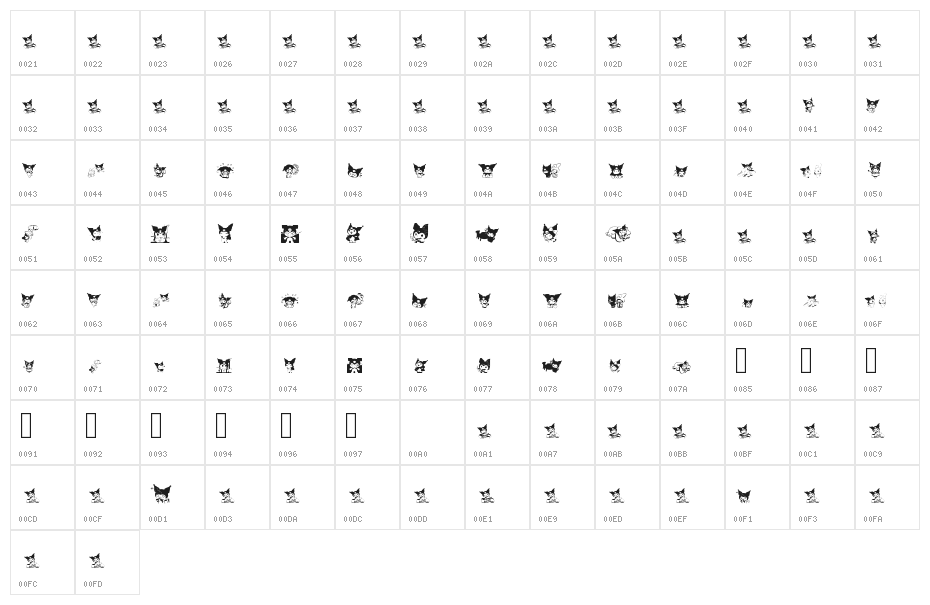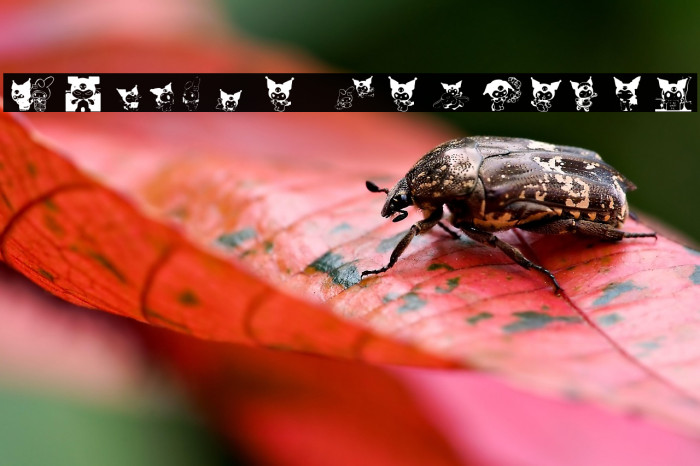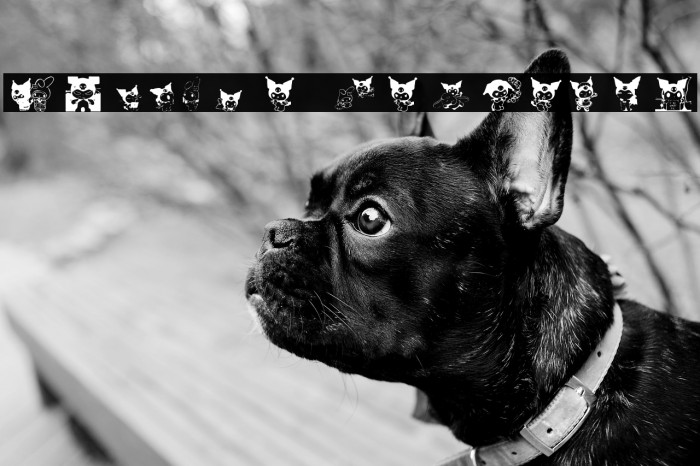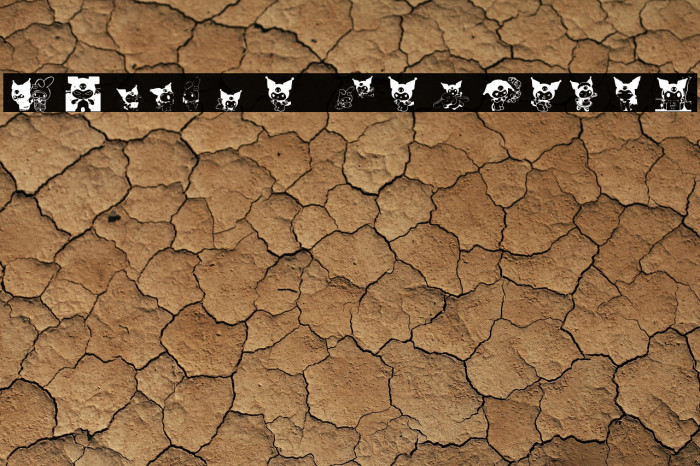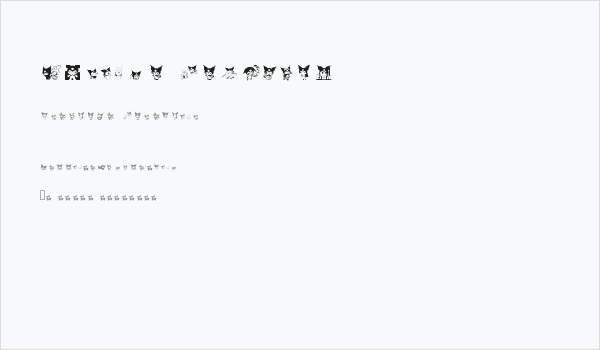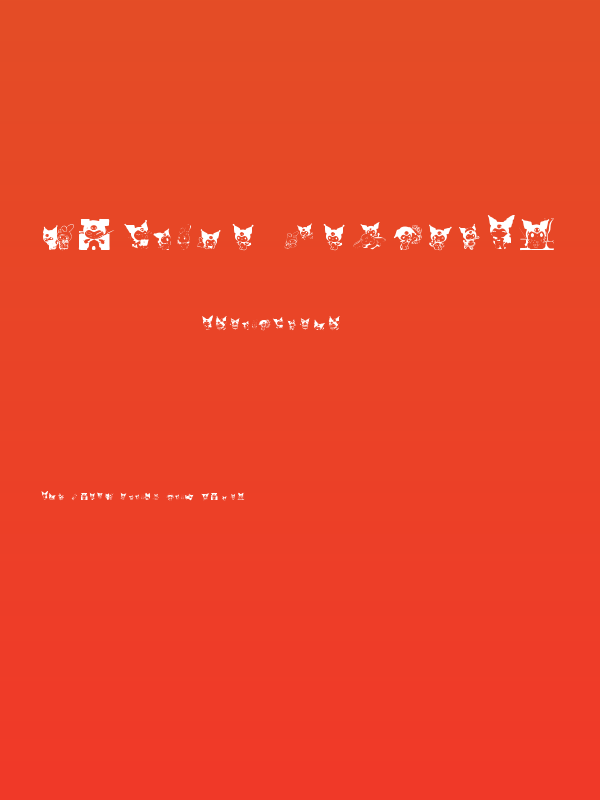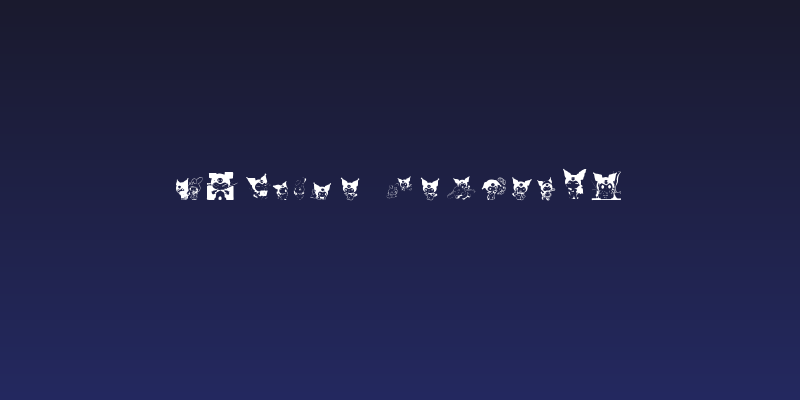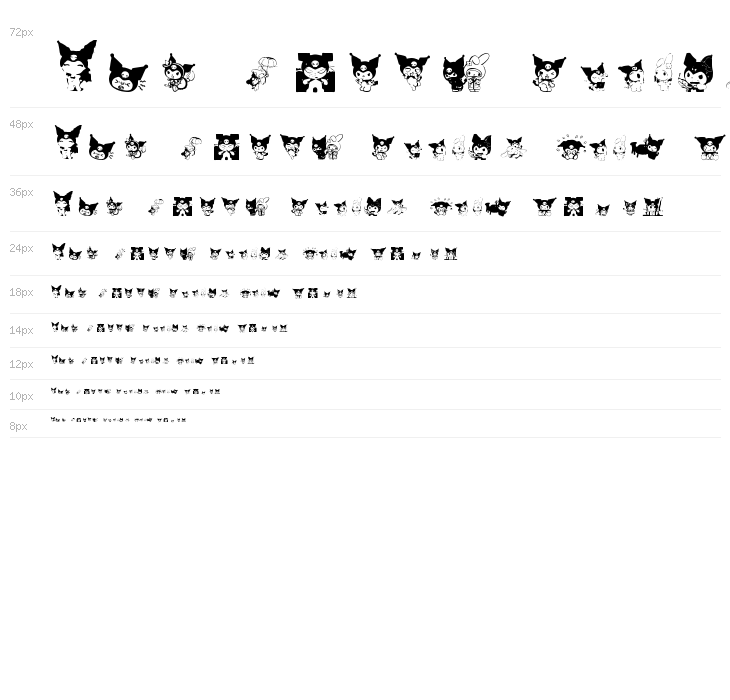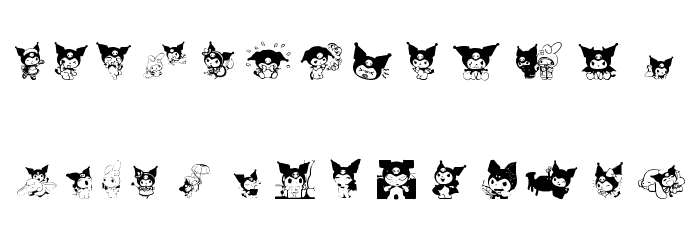
Kuromi dingbats Font
Kuromi dingbats Description
This set features playful and whimsical characters, each with a distinct personality and expression. The characters are cartoonish, with bold outlines and a variety of poses that convey a sense of fun and mischief. The style is consistent throughout, with a focus on cute and quirky designs that are likely to appeal to a younger audience or those looking for a lighthearted aesthetic. The characters are detailed, with expressive faces and dynamic postures, making them suitable for decorative purposes.
| Overall Style | Playful and Whimsical |
| Use Case | Decorative elements, Branding, Illustrations |
| Proposed Projects | Ideal for children's book illustrations, playful branding, greeting cards, or decorative elements in digital media. |